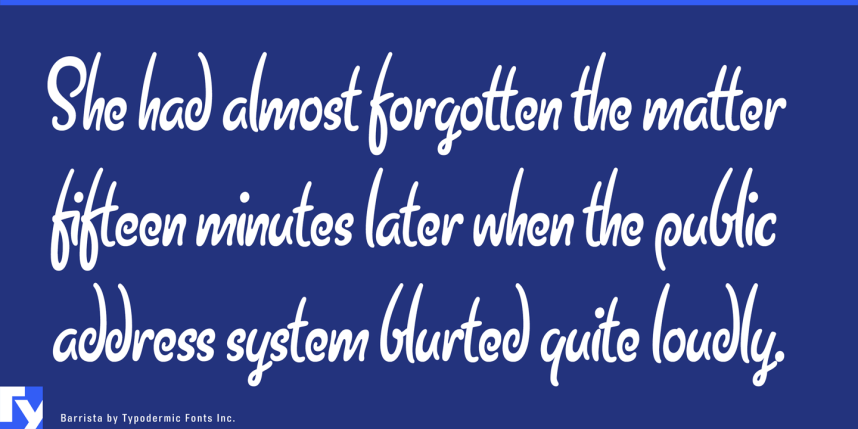
Barrista Font is perfect for specialty coffee shop branding, artisanal café signage, coffee roastery packaging, espresso bar menus, coffee culture magazines, barista training materials, coffee subscription services, third-wave coffee promotions, coffee bean labeling, and aromatically inviting marketing communications.
Barrista Font is exciting because it captures the passionate artistry and sensory richness of specialty coffee culture with its warmly crafted letterforms that seem to steam with aromatic intensity and embody the dedicated expertise that transforms simple beans into extraordinary experiences that awaken the senses and bring communities together. Its expertly crafted character design reflects both the technical precision required for perfect extraction and the cultural sophistication that elevates coffee from mere beverage to daily ritual of pleasure and connection, making it perfect for brands celebrating coffee craftsmanship and café culture.
Barrista Font family includes light, regular, medium, bold, and black weights, each with corresponding italic versions. The font family also features coffee-inspired ornaments, café ligatures, brewing symbols, and aromatic decorative elements that enhance its warm aesthetic and coffee culture versatility.
This expertly crafted typeface represents the perfect fusion of coffee artistry and cultural sophistication. Barrista Font Free Download enables designers to experience its aromatic potential before making a commercial commitment. The font's ability to convey both artisanal expertise and café warmth makes it ideal for specialty coffee shops, roasteries, and coffee brands targeting discerning audiences seeking authentic coffee culture experiences and artisanal brewing excellence.
Whether you're developing specialty café identities, creating coffee roastery materials, or designing coffee culture communications, Barrista Font brings an unmistakable sense of aromatic warmth and brewing expertise to every project. Its expertly crafted character and coffee heritage create powerful connections that resonate with coffee enthusiasts and audiences seeking authentic artisanal coffee experiences and café community connections.
The font's versatility excels in hospitality and artisanal environments where coffee expertise and cultural warmth are essential. Its aromatic character makes it particularly effective for specialty coffee shops, craft roasteries, coffee equipment brands, and café businesses seeking to establish warm relationships with coffee lovers and audiences who appreciate artisanal brewing techniques and authentic café culture.
For designers working on projects requiring genuine coffee culture appeal and artisanal expertise, Barrista Font offers an exceptional solution. Its expertly warm presence and comprehensive coffee-themed elements provide the tools needed for creating truly aromatic communications, while its brewing sophistication ensures your designs capture the passionate artistry and cultural richness that defines the most exceptional specialty coffee experiences and authentic café communities.